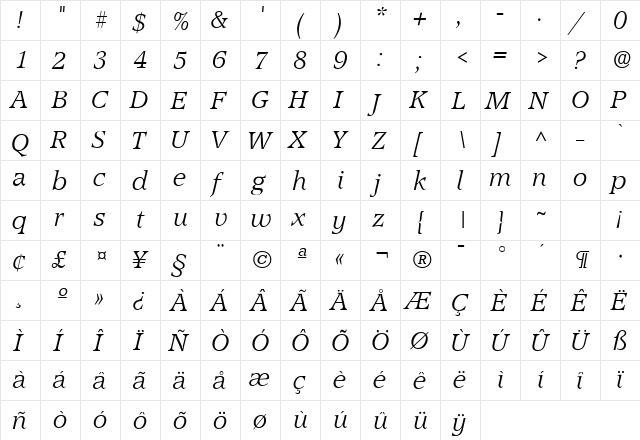
Accord Light SF Italic Font Preview
Design Context for Accord Light SF Typeface
Accord Light SF takes a measured approach to typography — its balanced proportions and neutral character make it a reliable workhorse for both digital and print work. The slanted form adds forward momentum and visual energy. Its slender proportions lend an understated elegance to any composition.
Pro Tip: Try Accord Light SF for annotation and caption copy alongside an upright companion — the contrast in angle creates a dynamic but ordered typographic system.